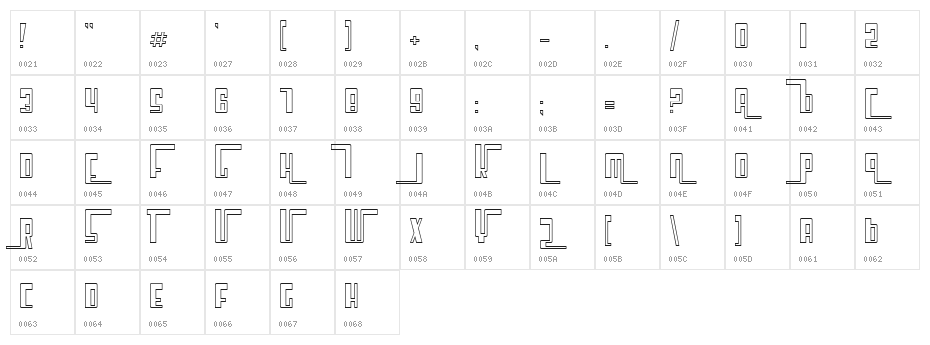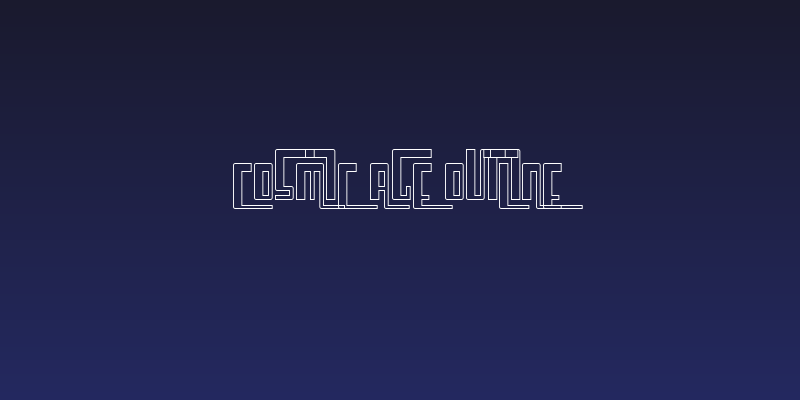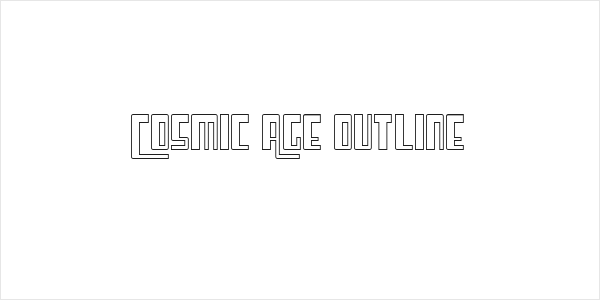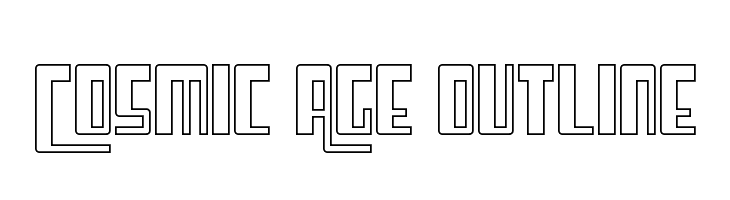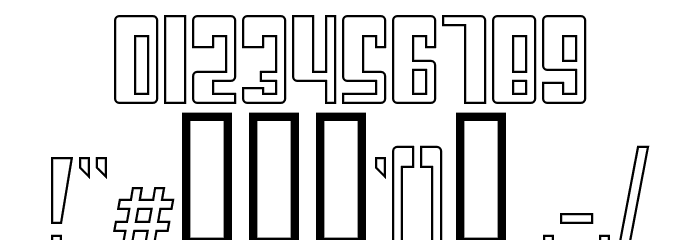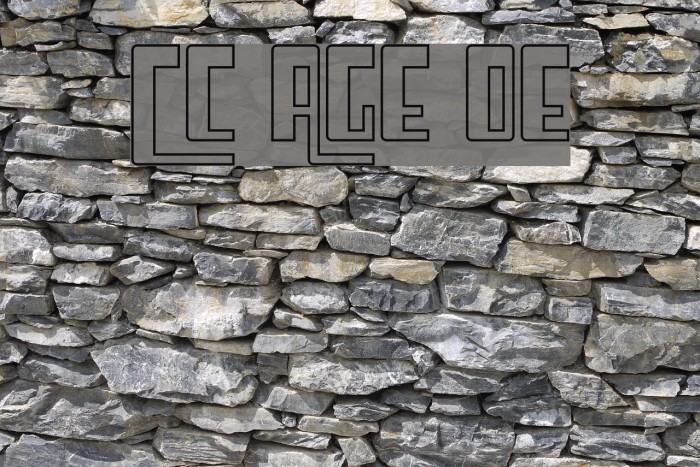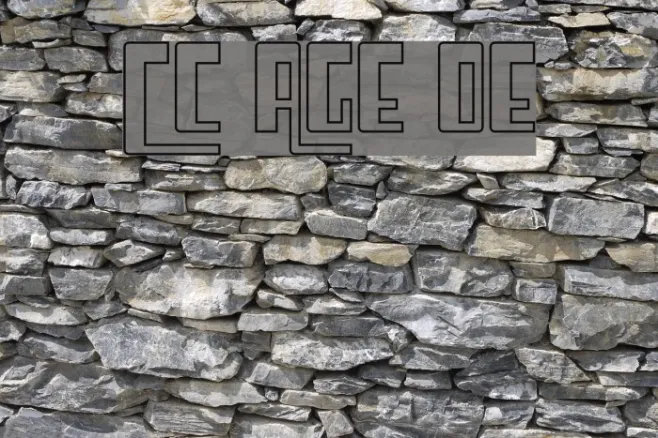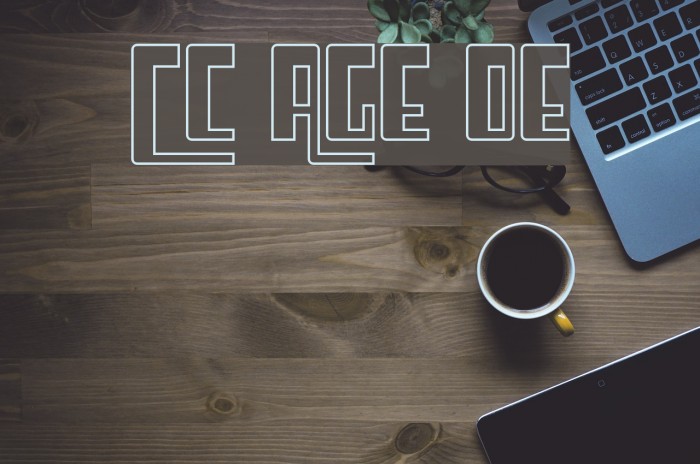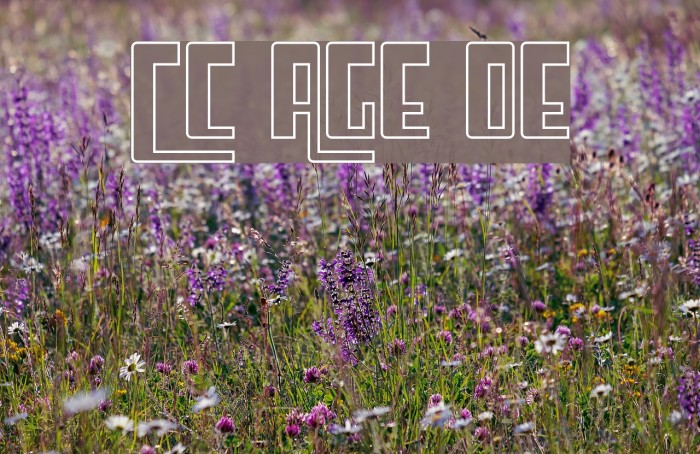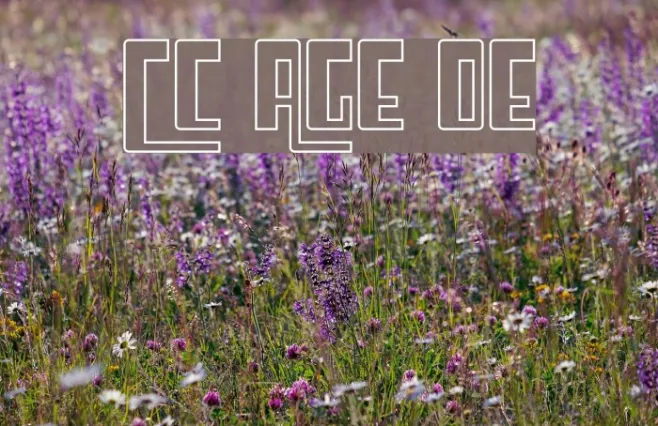
Cosmic Age Outline Font
Cosmic Age Outline Description
This font features an outline style with a futuristic and geometric design. The characters are constructed with clean, straight lines and sharp angles, giving them a modern and digital appearance. The uppercase and lowercase letters share a consistent height, enhancing the uniformity and structured look. The numerals and special characters maintain the same aesthetic, ensuring cohesion across all glyphs. The open spaces within the characters contribute to a sense of lightness despite the bold outline, making it suitable for eye-catching designs.
| Proposed Projects | Ideal for sci-fi themed projects, digital artwork, posters, and branding that requires a modern and technological feel. |